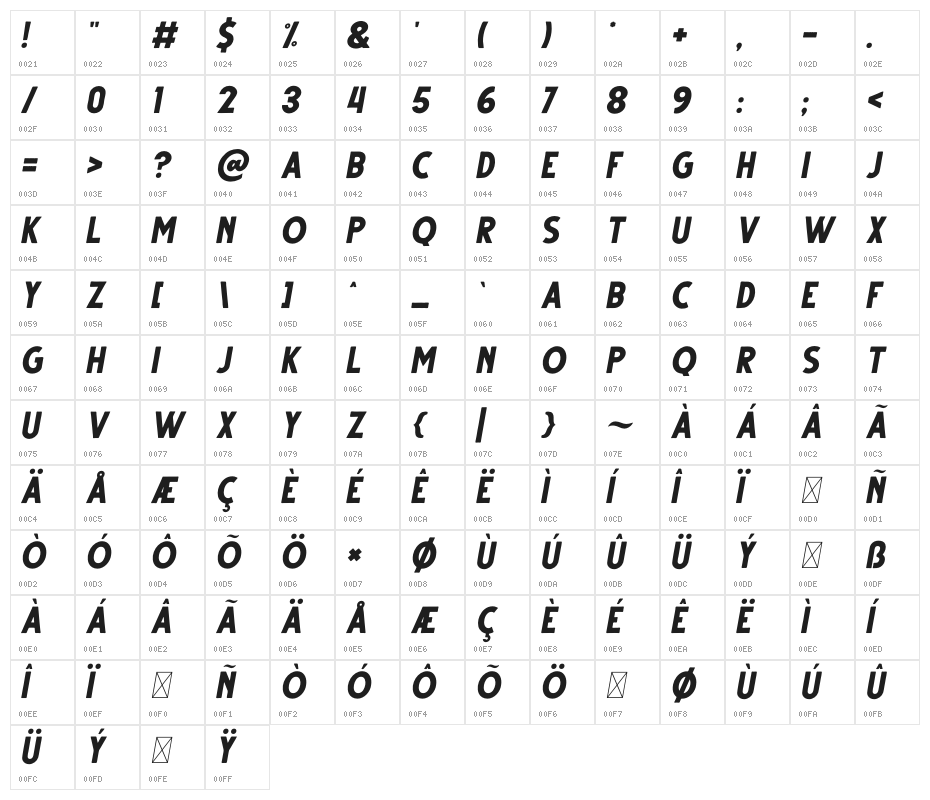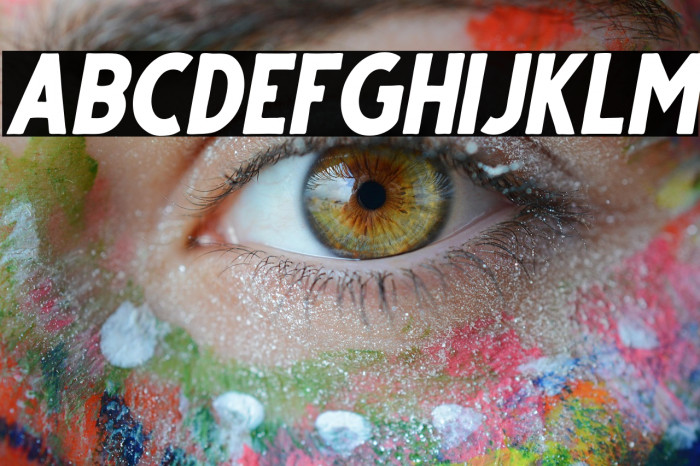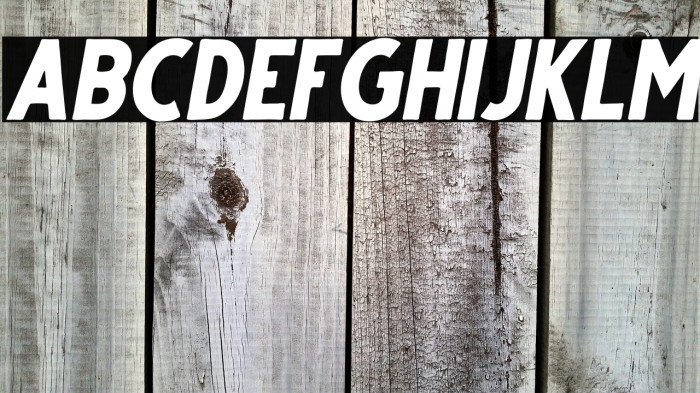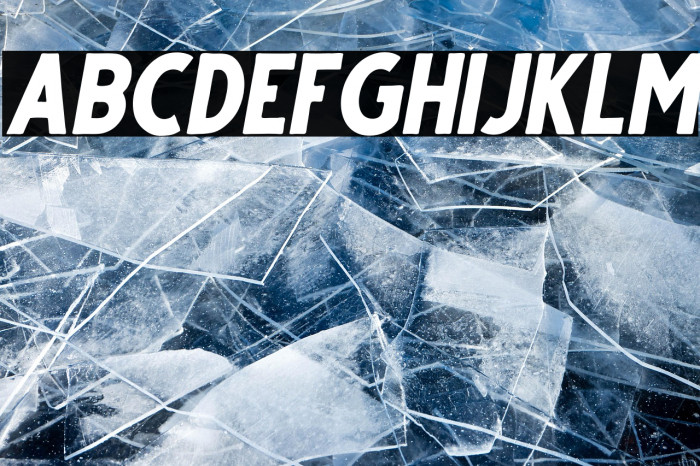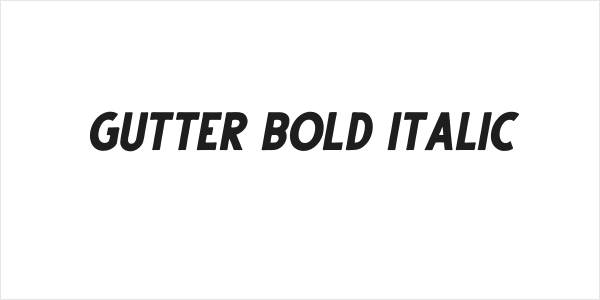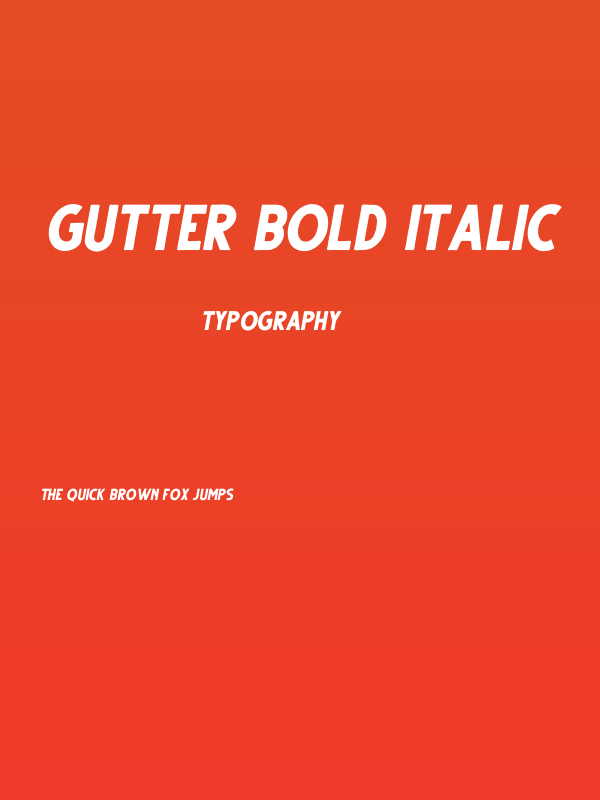
Gutter Bold Italic Font
Gutter Bold Italic Description
This font features a bold and italicized style, characterized by its strong and dynamic appearance. The letters are slightly slanted, giving a sense of movement and energy. The strokes are thick and consistent, providing a robust and impactful look. The font maintains a modern aesthetic with its clean lines and smooth curves, making it suitable for attention-grabbing headlines and titles. The numbers and special characters are designed to match the boldness of the letters, ensuring a cohesive look across all text elements.